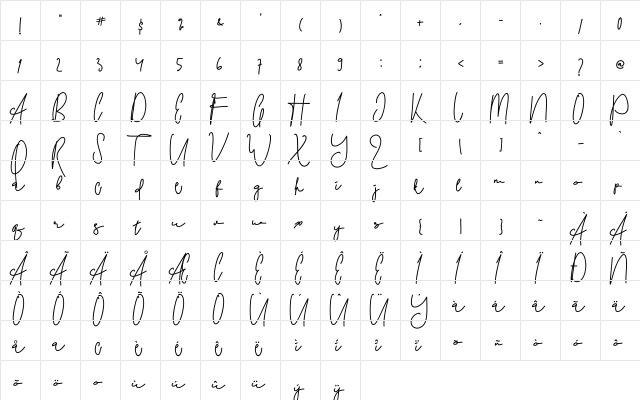
Sinawane Regular Font Preview
Sinawane Regular
Sinawane Regular Font Details
| Designer | Designed by Muhamad Ali Hasan from Mozyen Studio |
Design Context for Sinawane Typeface
Sinawane is a composed and adaptable typeface that performs quietly and consistently across a wide range of design contexts.